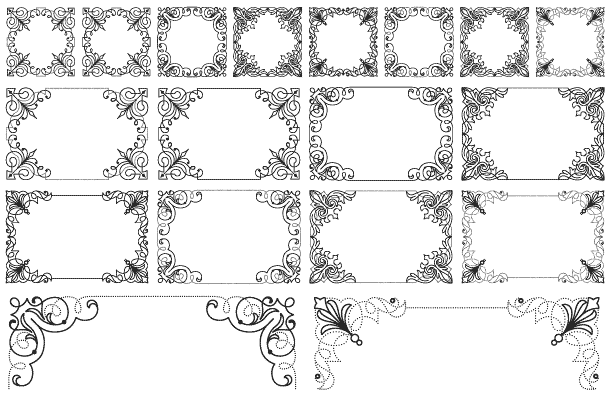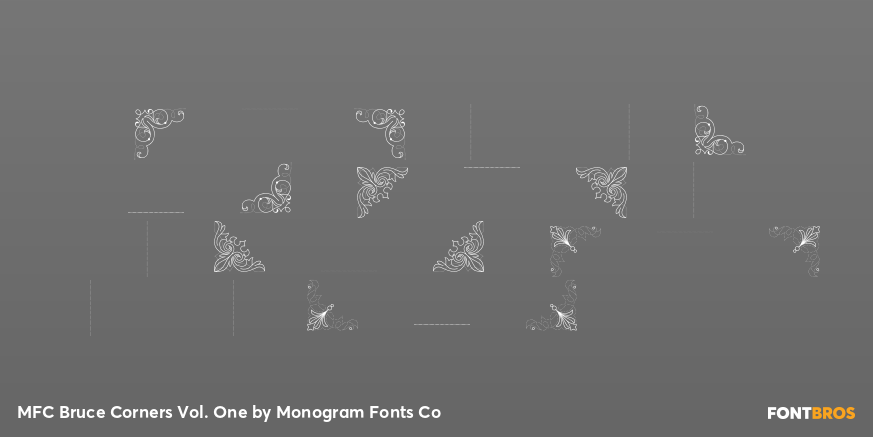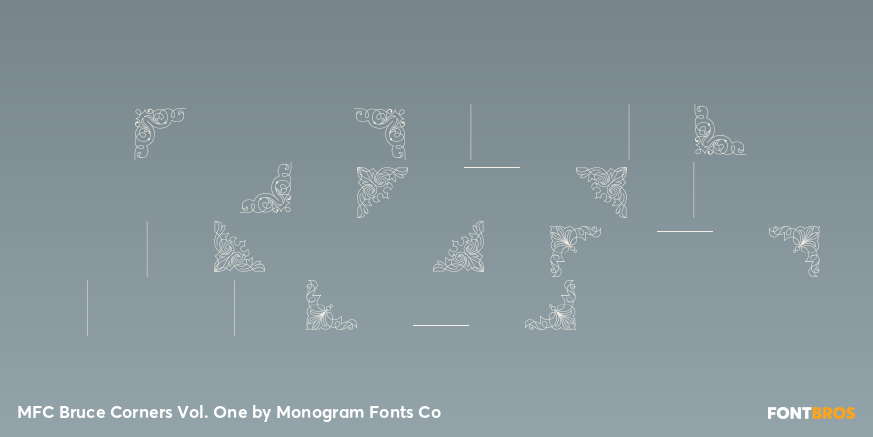
MFC Bruce Corners Vol. One
Font Family by Monogram Fonts Co
The inspiration source for Bruce Corners One is a collection of the Metal Corners from the 1882 ?Specimens of Printing Types? from Bruce's New-York Type-Foundry. This collection of ornate corners has been put together with their matching precision rules, alternate bare corners, and a basic dual line frame for added versatility.